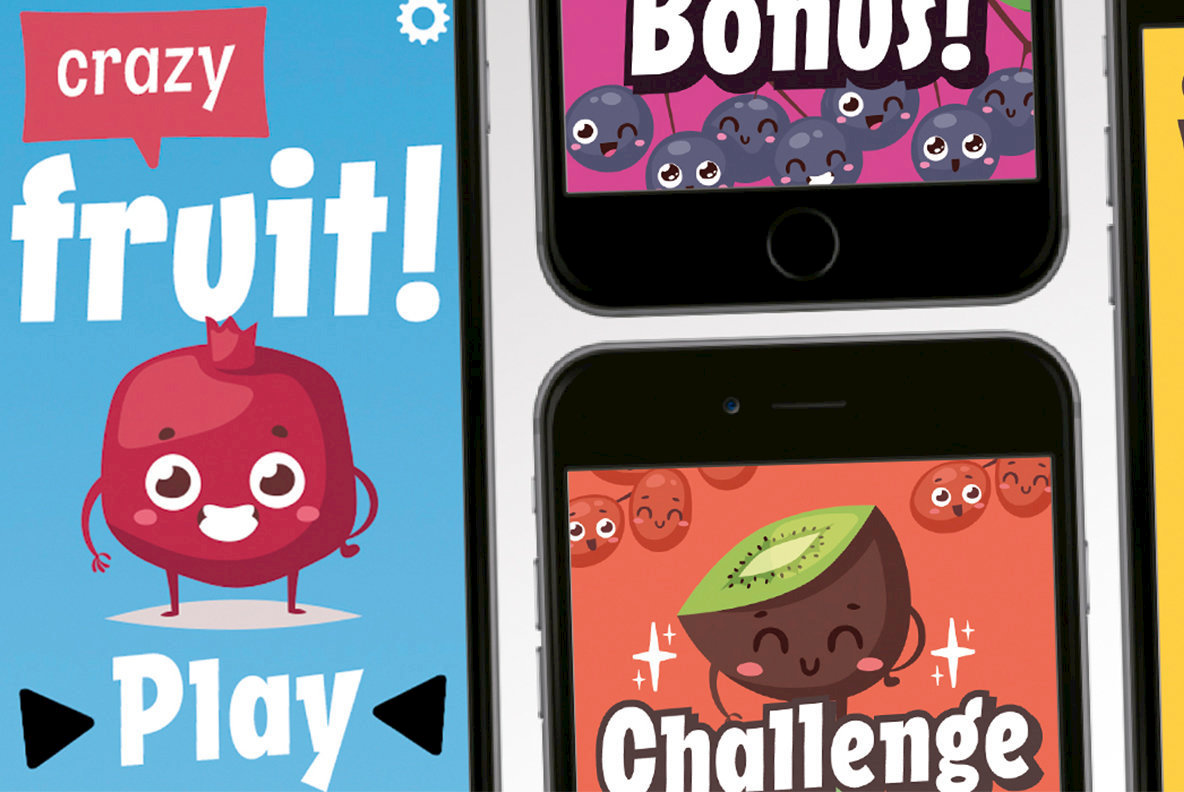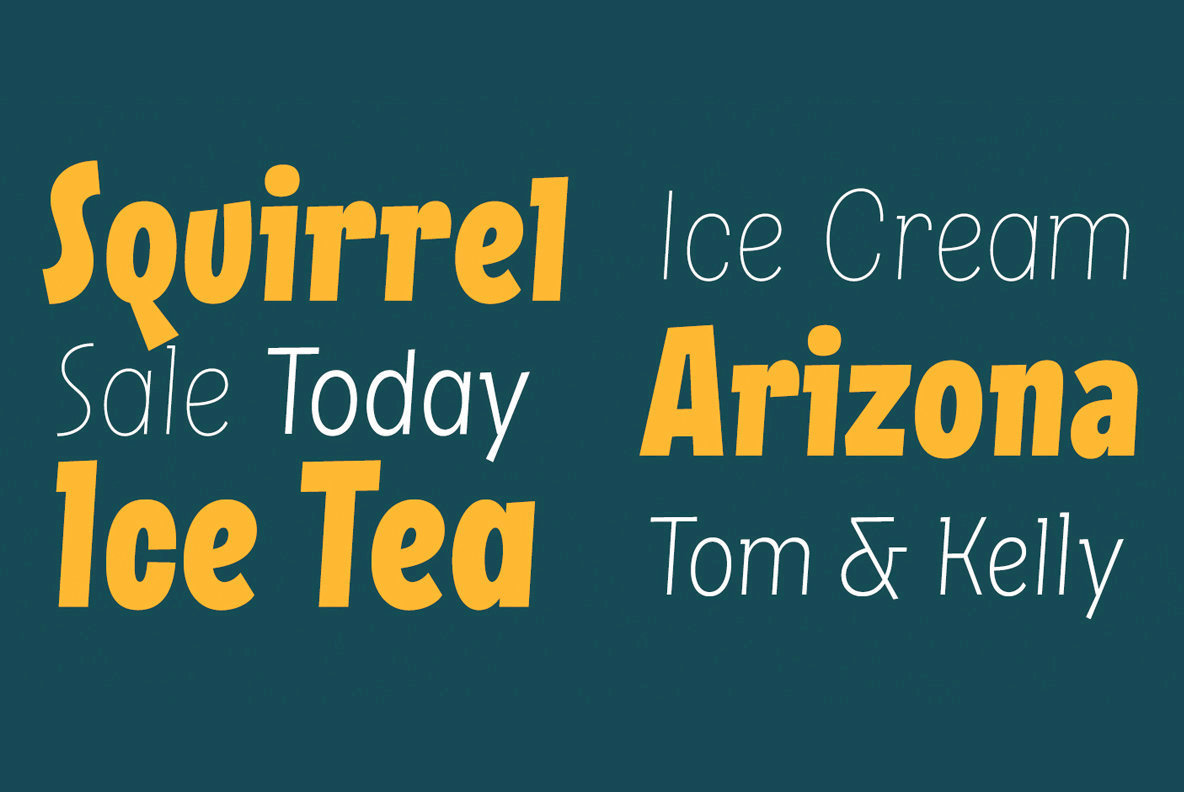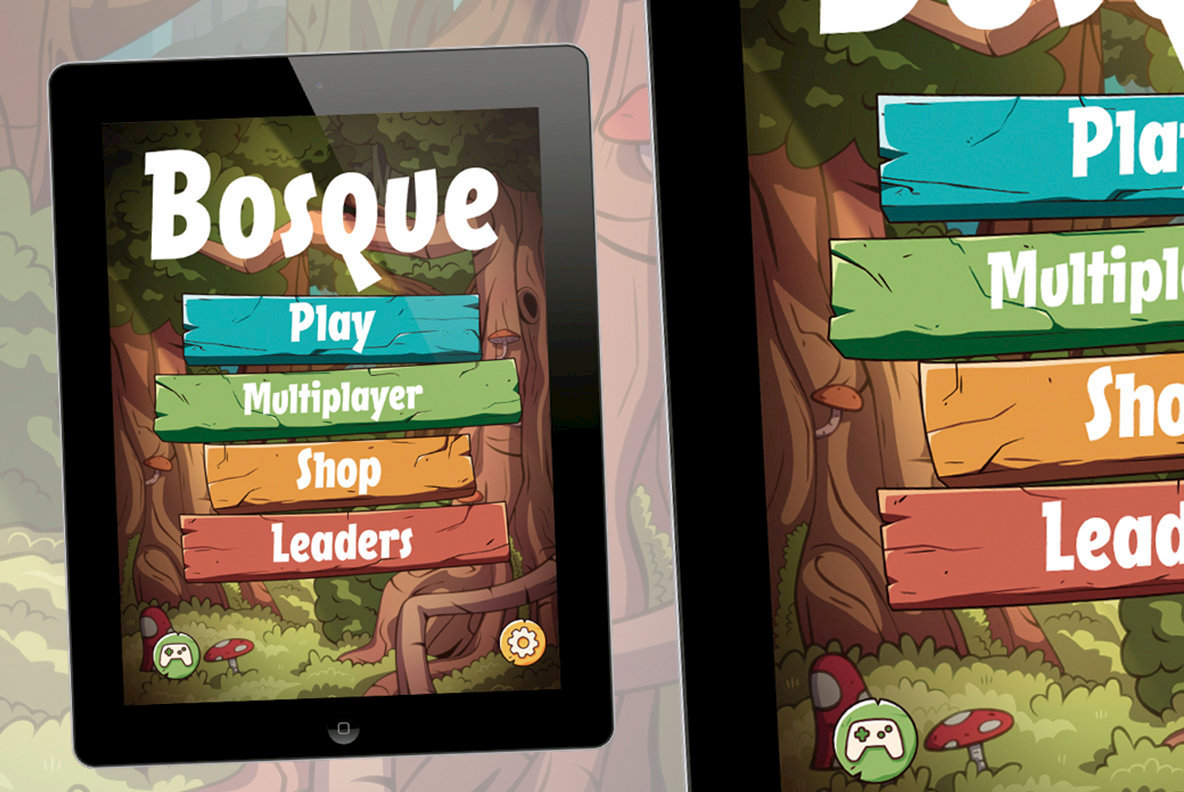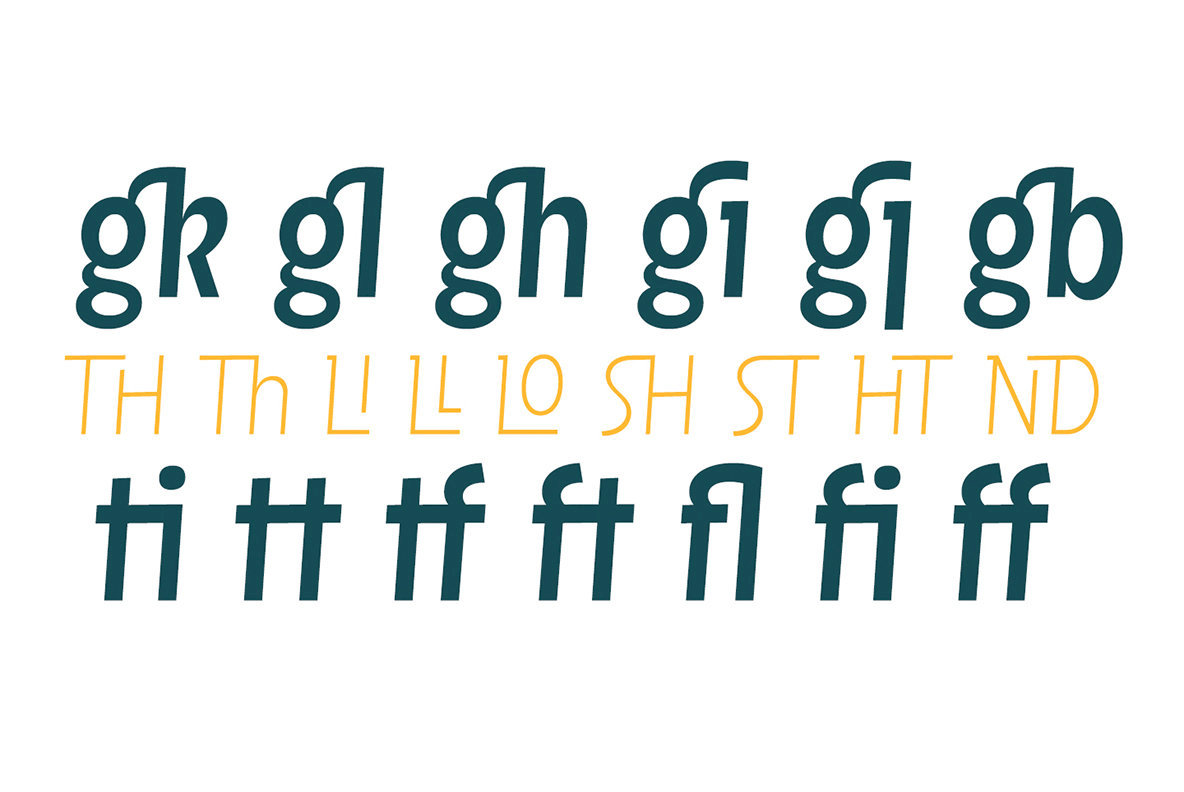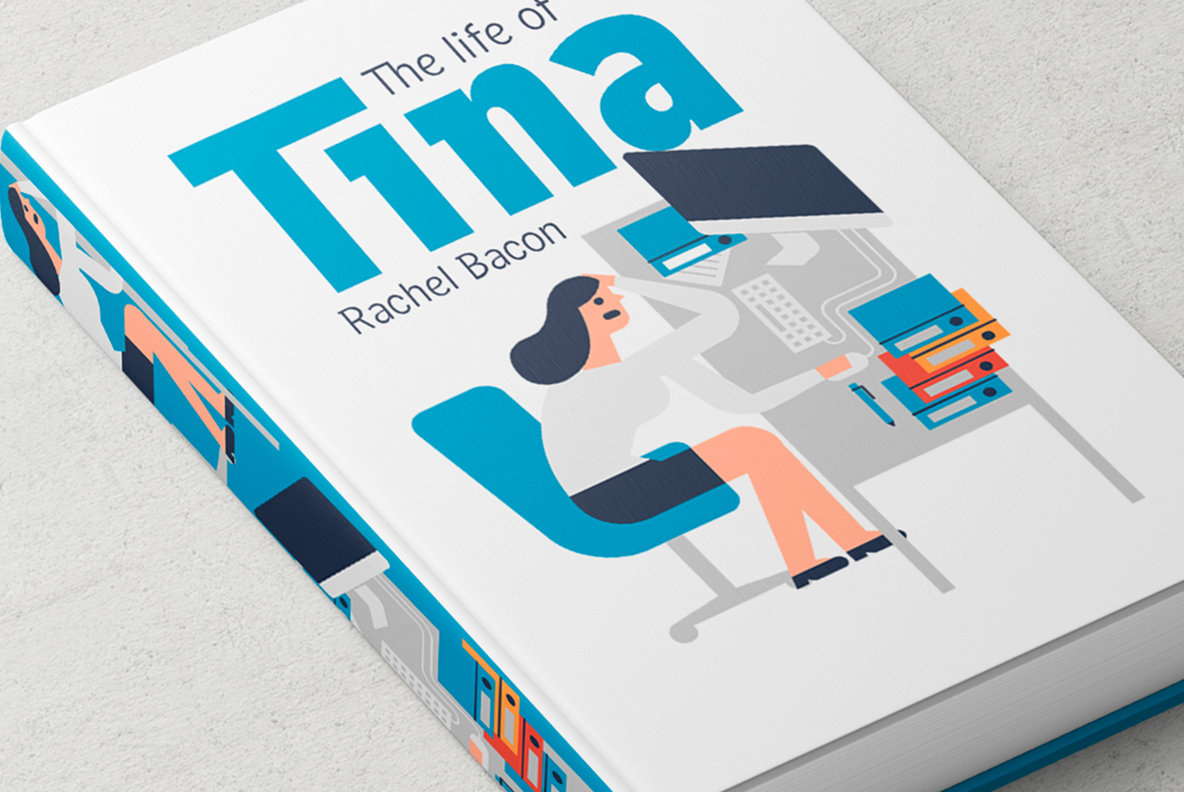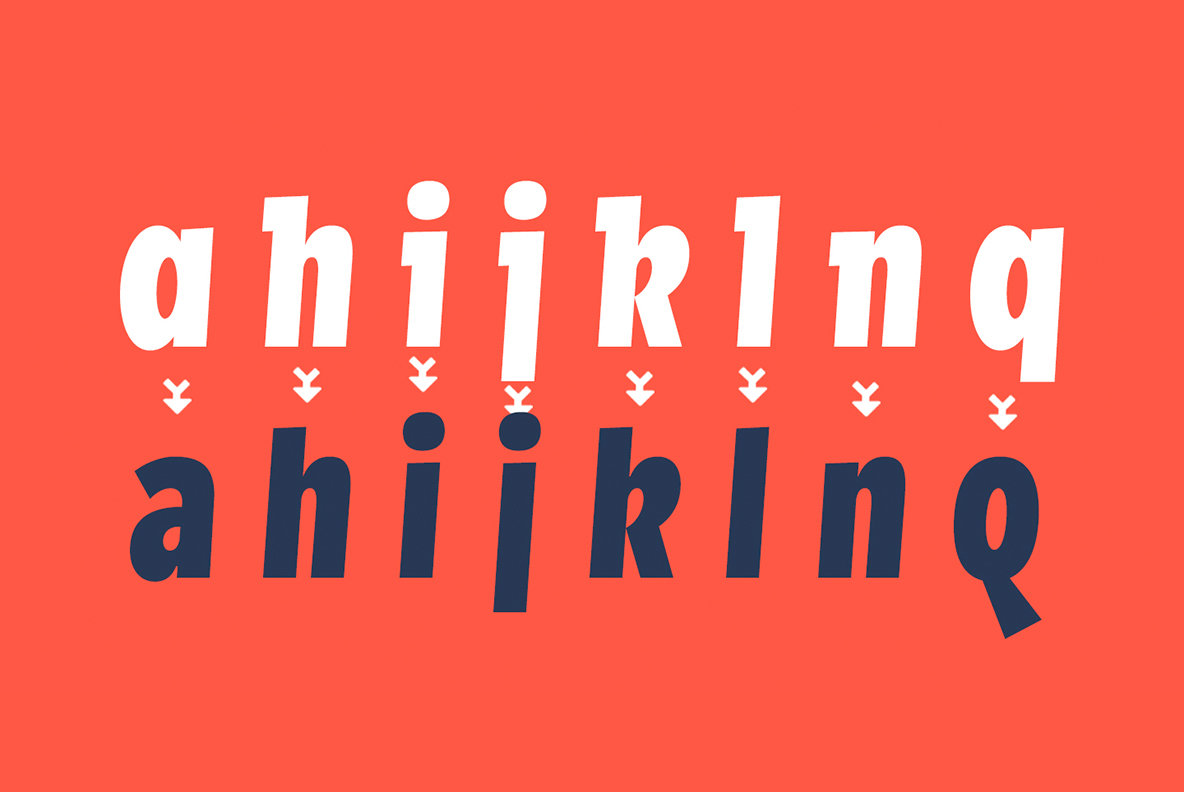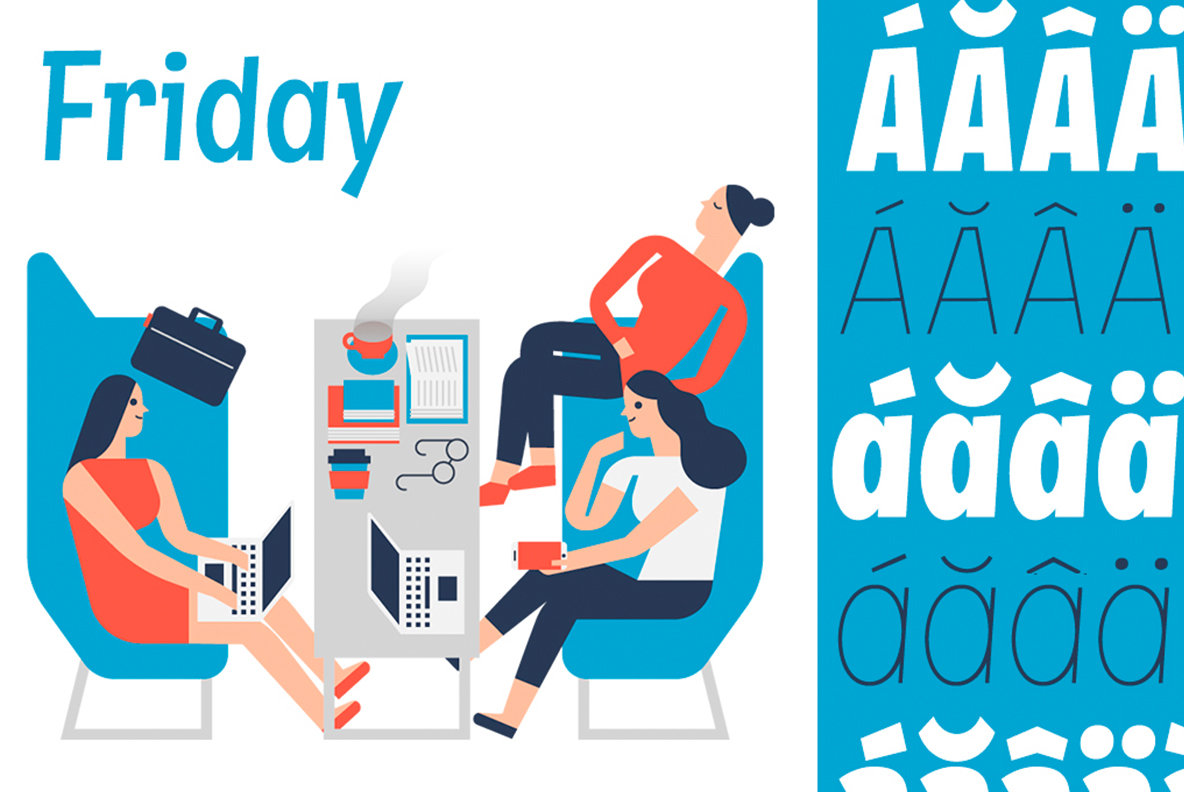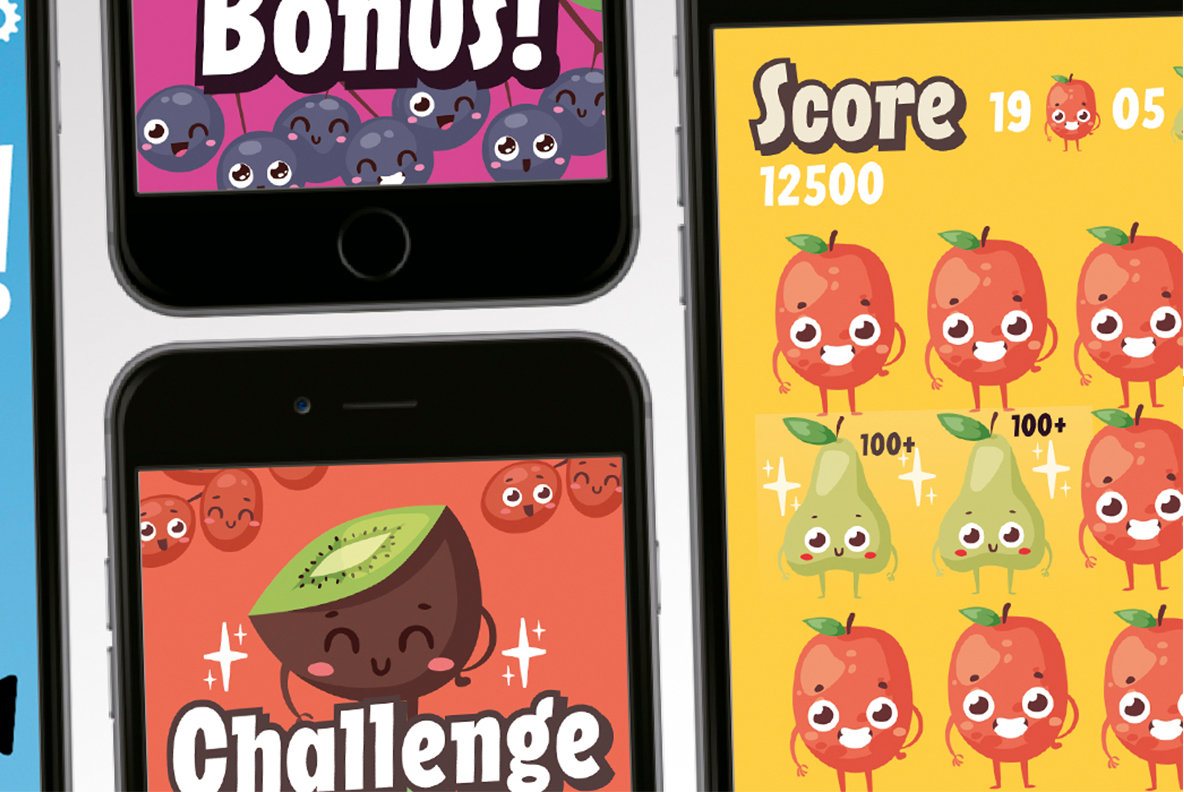
Squick Font
Squick, crafted by RodrigoTypo, is a dynamic sans-serif font that brings versatility to your design projects. Its wide array of weights, from Thin to Black, offers extensive typographic flexibility. The inclusion of ligatures, dingbats, and shadow variations further enriches its usability, making it a fitting choice for youthful and engaging designs.Squick: Dynamic Sans Serif with Multiple Variations